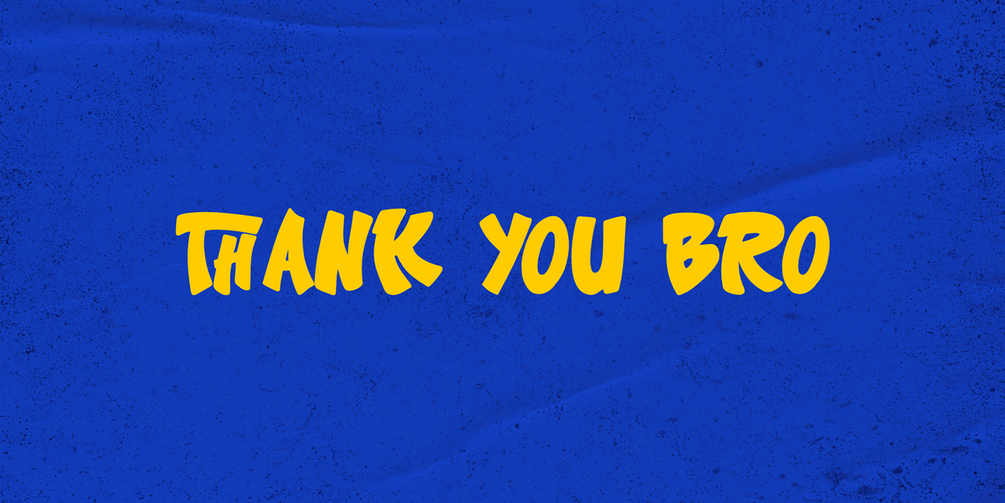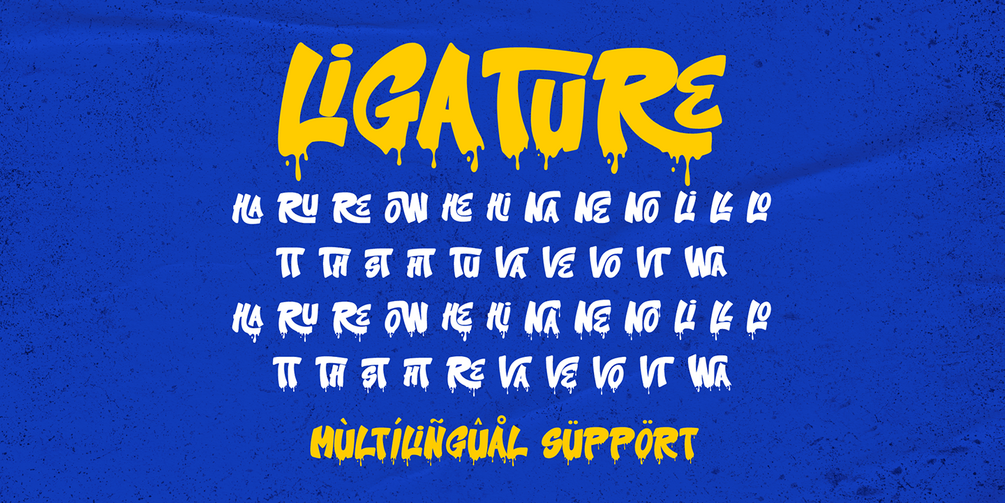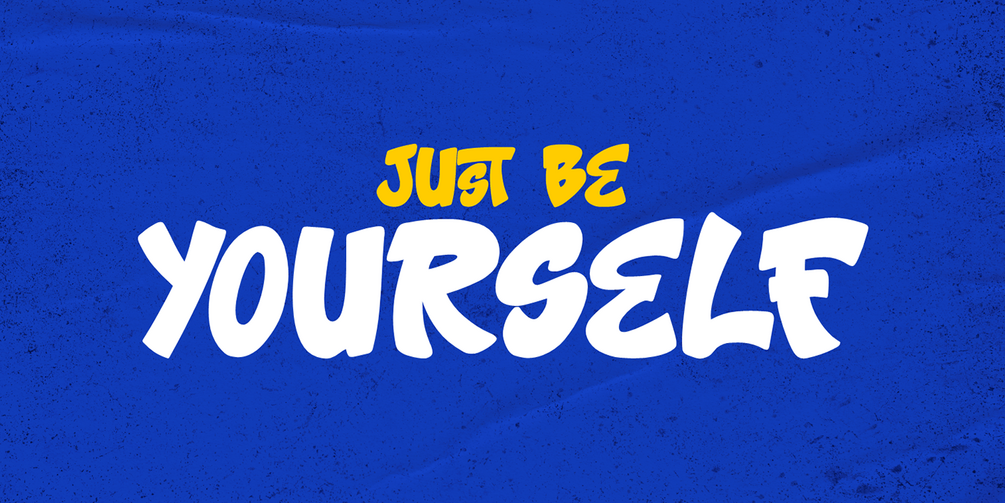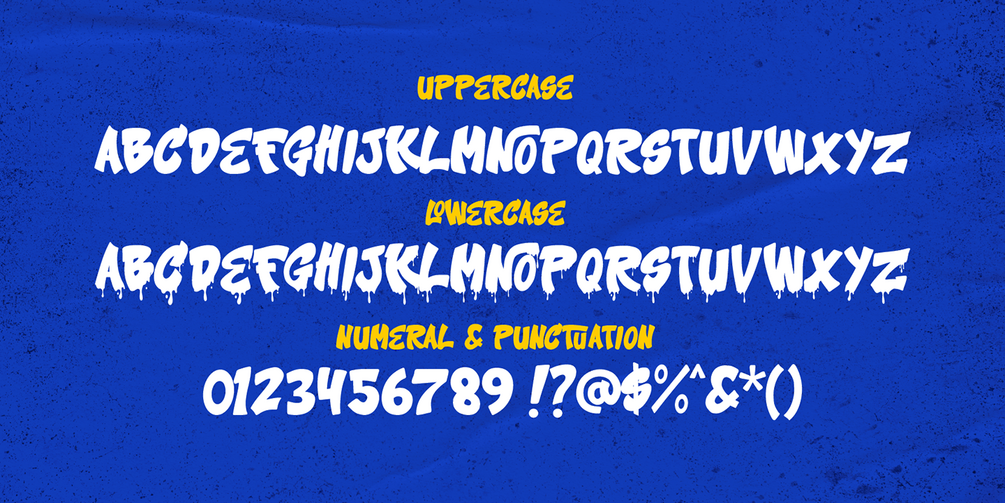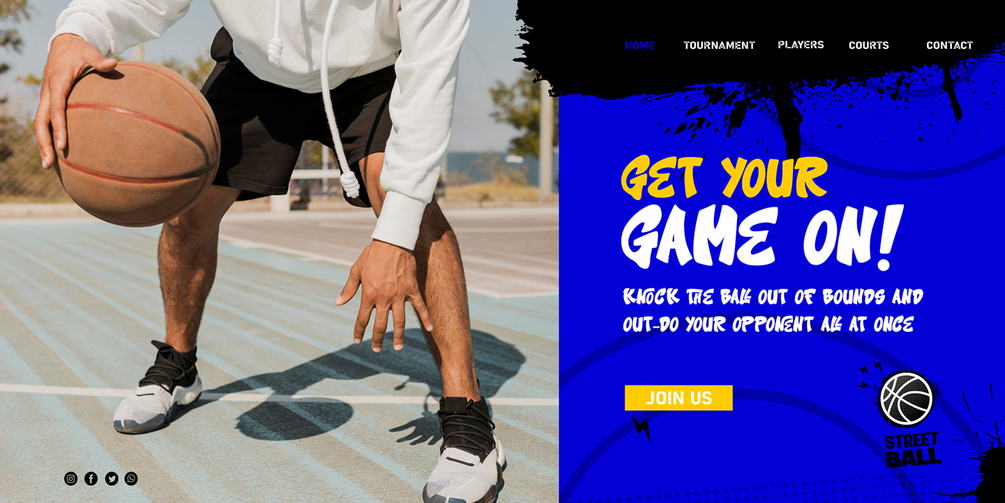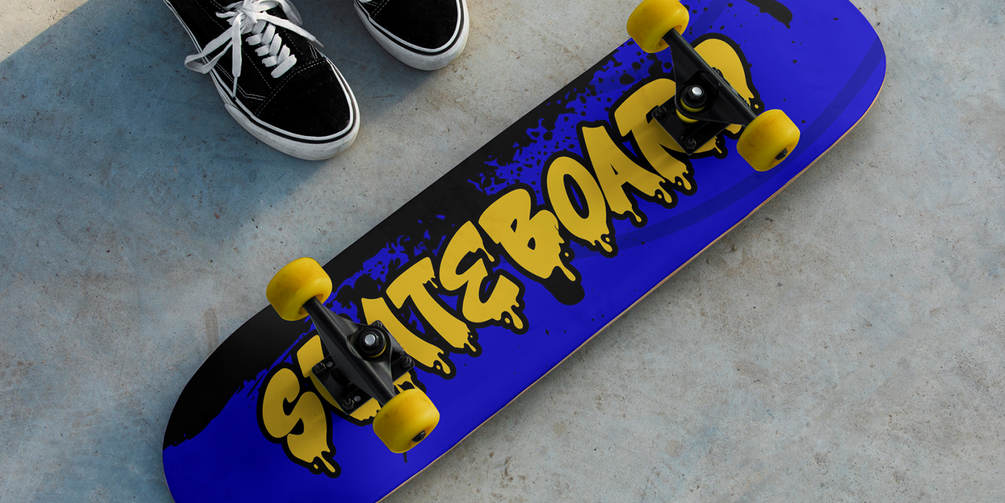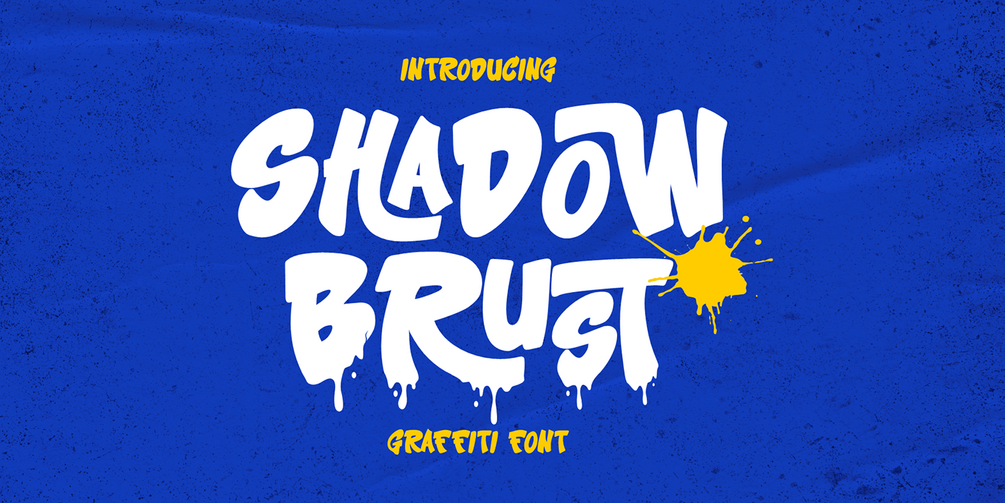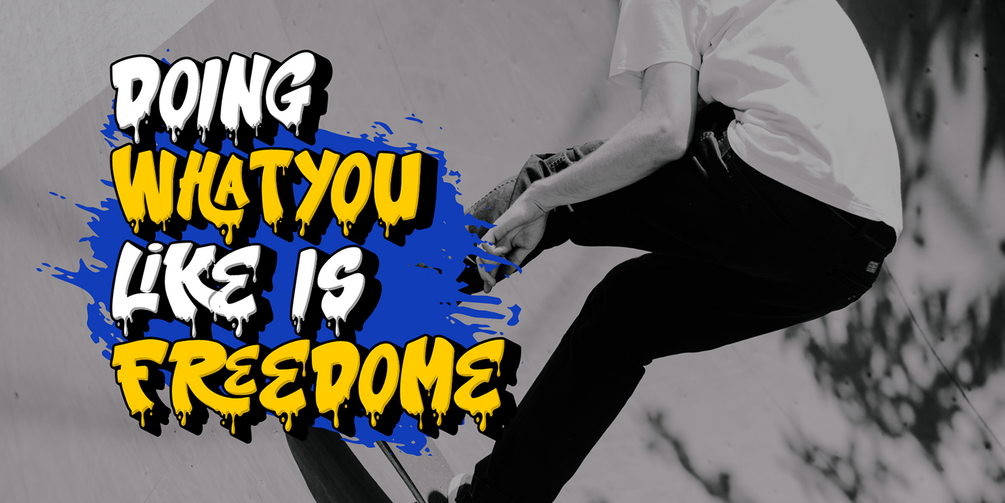
Shadow Burst is a bold and expressive decorative graffiti font featuring two unique styles: solid and dripping. Designed to bring an urban and edgy vibe to your projects, this font captures the raw energy of street art. It also includes ligatures that enhance the flow and power of your text, making it perfect for posters, album covers, streetwear branding, and any design that demands a rebellious and artistic touch.
• Ligature
• Multilingual Support
• Versatile for branding, headline, or printing product
Unleash your creativity with Shadow Burst! 💥 Make your designs pop with powerful graffiti vibes and bold Characters with dripping decoration. Grab it now and bring urban flair to your next project!